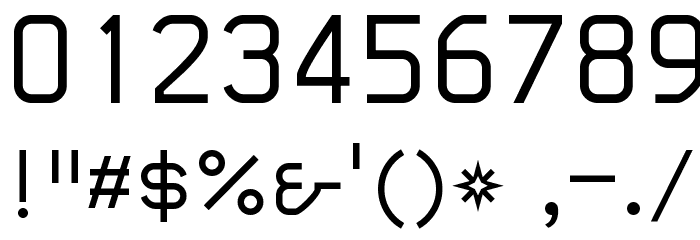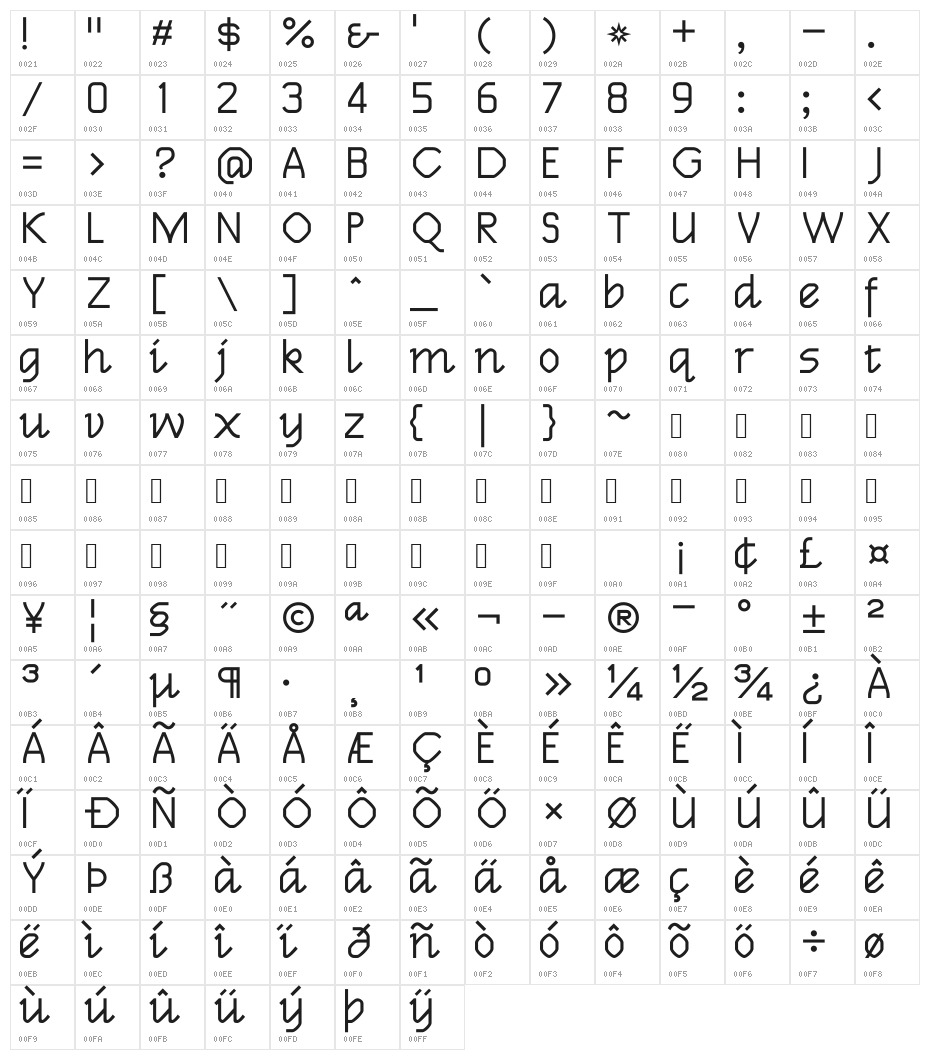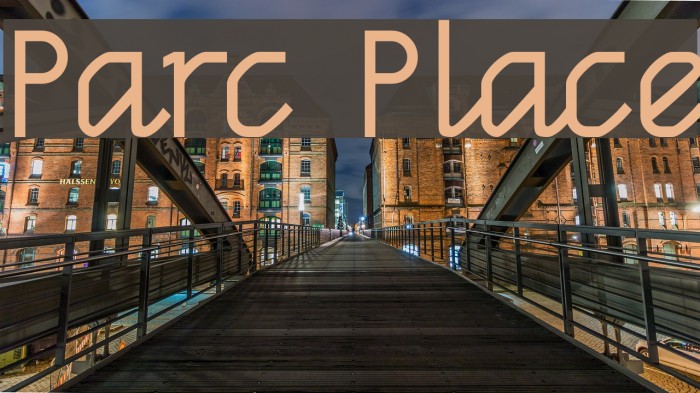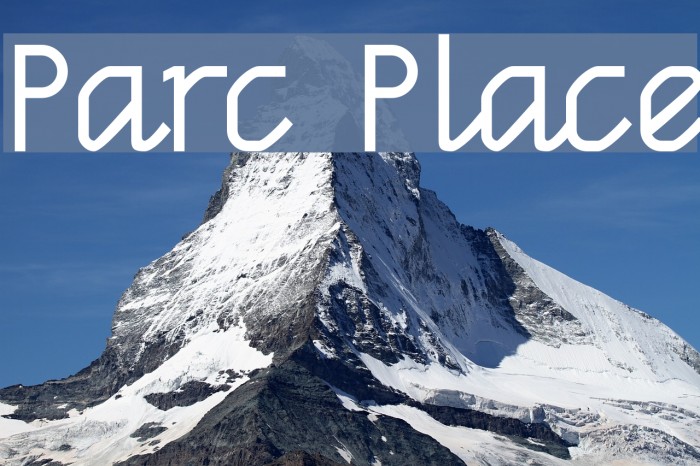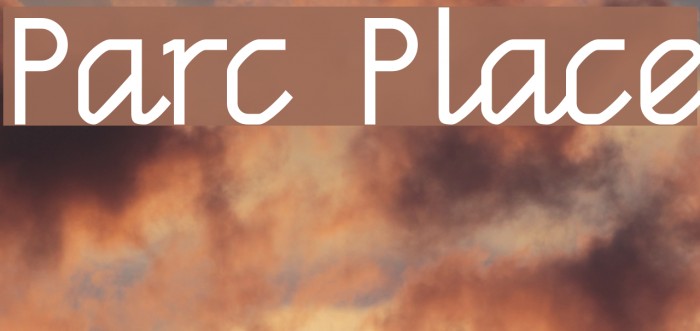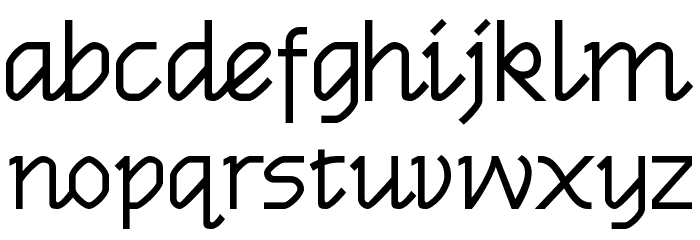
Parc Place Font
Parc Place Description
This font features a modern and geometric design with clean lines and a structured appearance. The uppercase letters are bold and angular, creating a strong visual impact. The lowercase letters maintain a consistent style with slight curves that add a touch of elegance. Numbers are clear and easily readable, while the special characters are distinct and well-defined. The overall look is contemporary, making it suitable for a variety of design applications.
| Proposed Projects | Ideal for branding, advertising, posters, and digital media where a modern and impactful look is desired. |